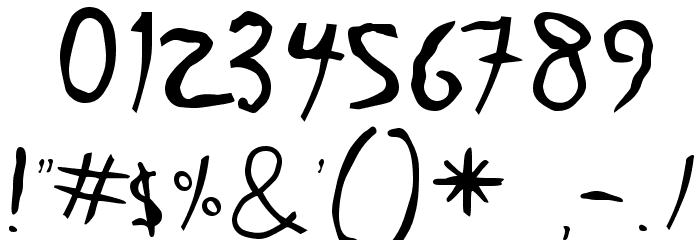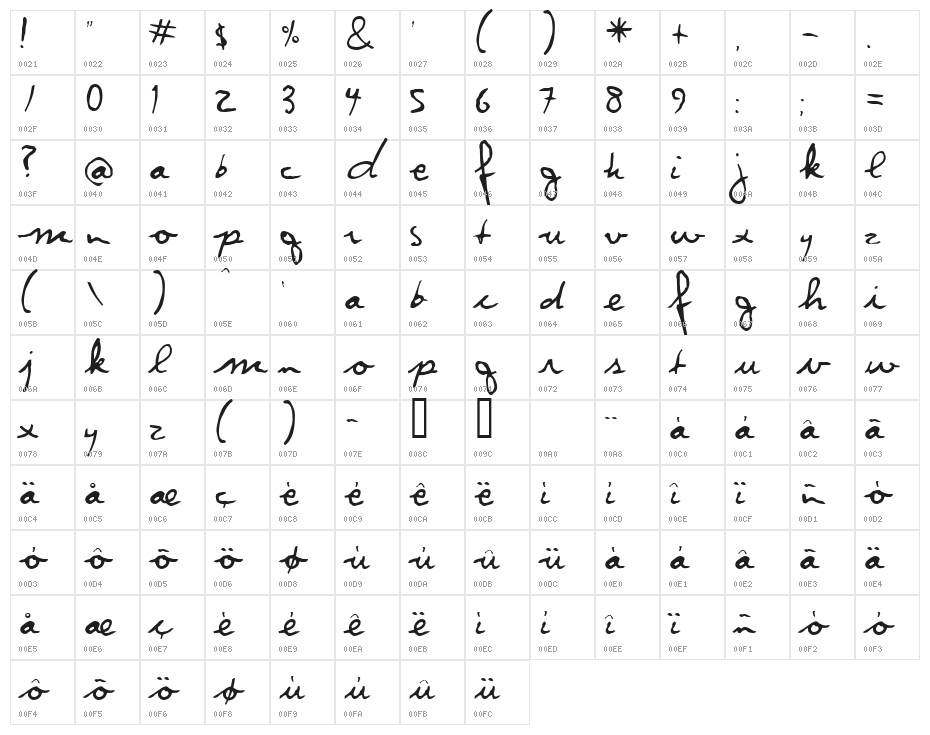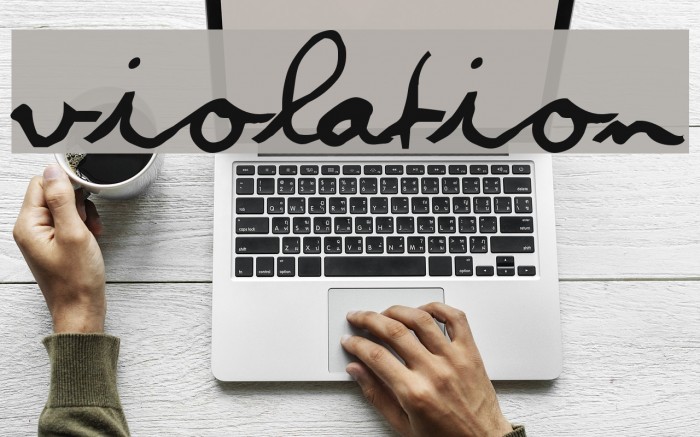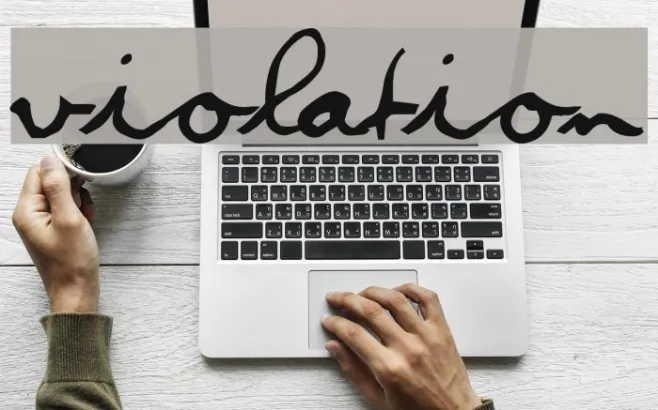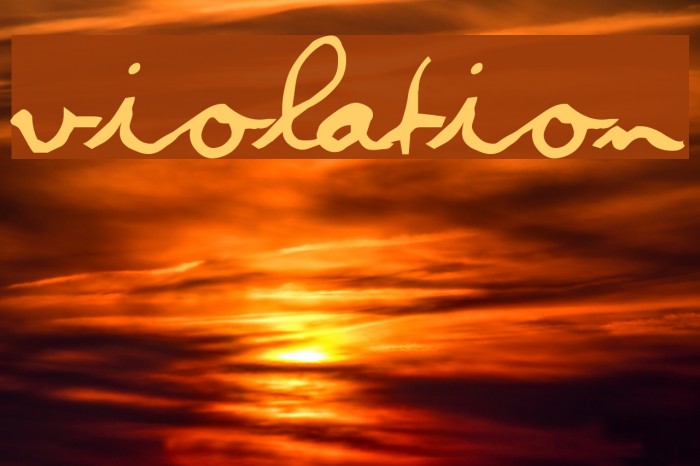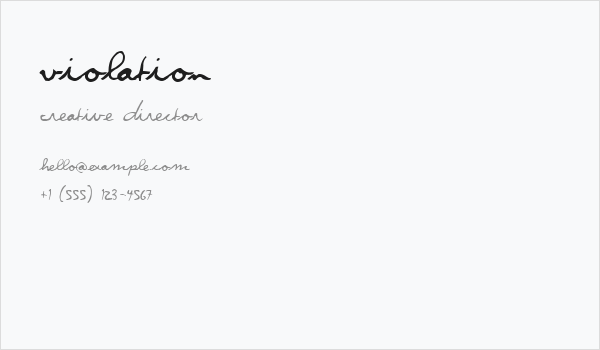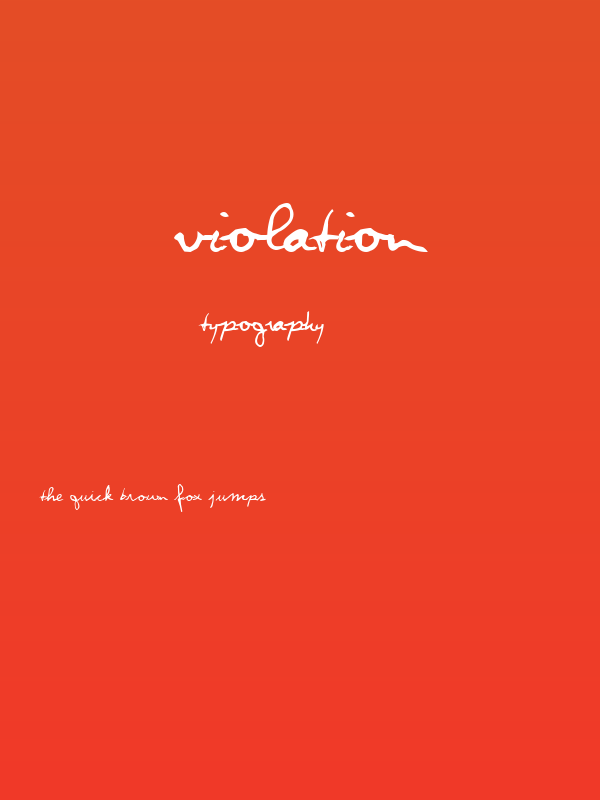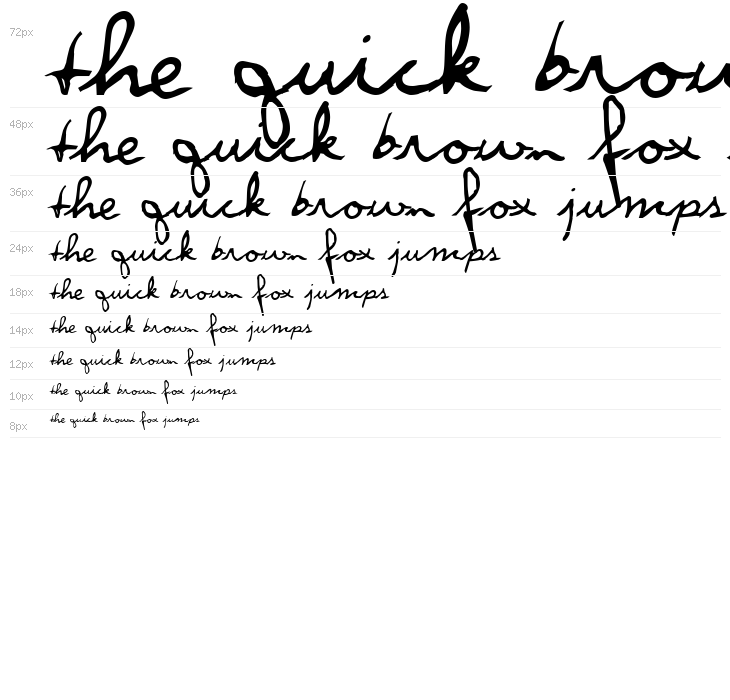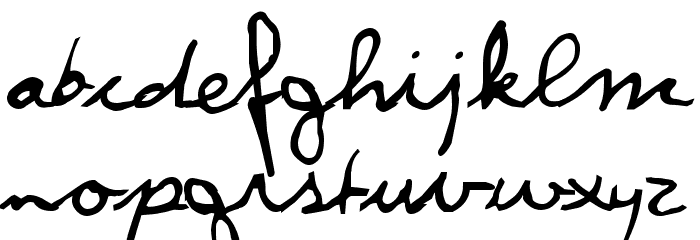
Violation Font
Violation Description
This font exhibits a dynamic and expressive handwritten style, characterized by its fluid and organic letterforms. The strokes are varied in thickness, giving it a lively and spontaneous appearance. The uppercase and lowercase letters maintain a consistent style, with a slight slant that enhances the casual and informal feel. The numerals are bold and slightly exaggerated, matching the playful nature of the alphabet. Special characters are integrated seamlessly, maintaining the overall aesthetic. This font is ideal for projects that require a personal touch, such as invitations, greeting cards, or creative branding. Its unique style captures attention while remaining legible and engaging.